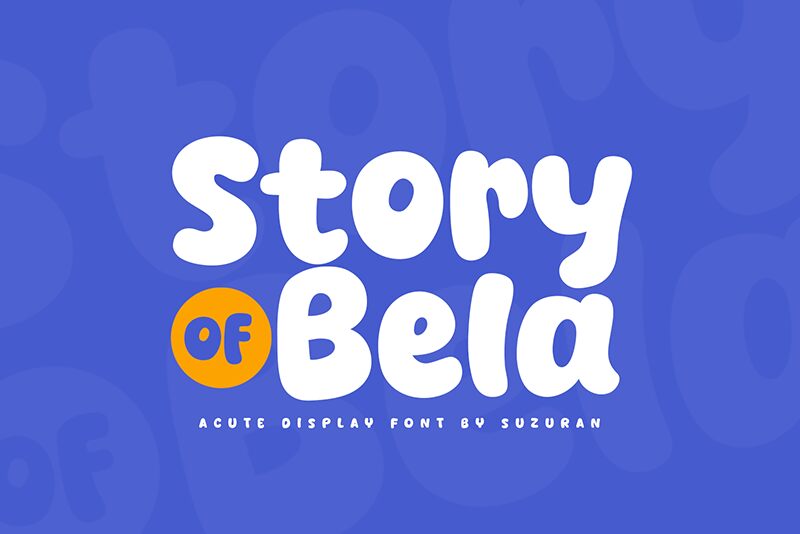
Story of Bela
Story of Bela font is a friendly cartoon typeface designed by Khurasan. Each letter in the chunky display font sports thick stems and rounded apexes and bowls. Although bold, it communicates a natural soothing casual feel. In its body, it has an obvious modern youthful look where you can imagine white teeth charming smiles!
Use this modern approachable free display font for greeting cards, children’s book covers, online comic comics, headings covers, typography artwork typography posters visiting card designs posters, social media posts templates banners YouTube cover images among others.